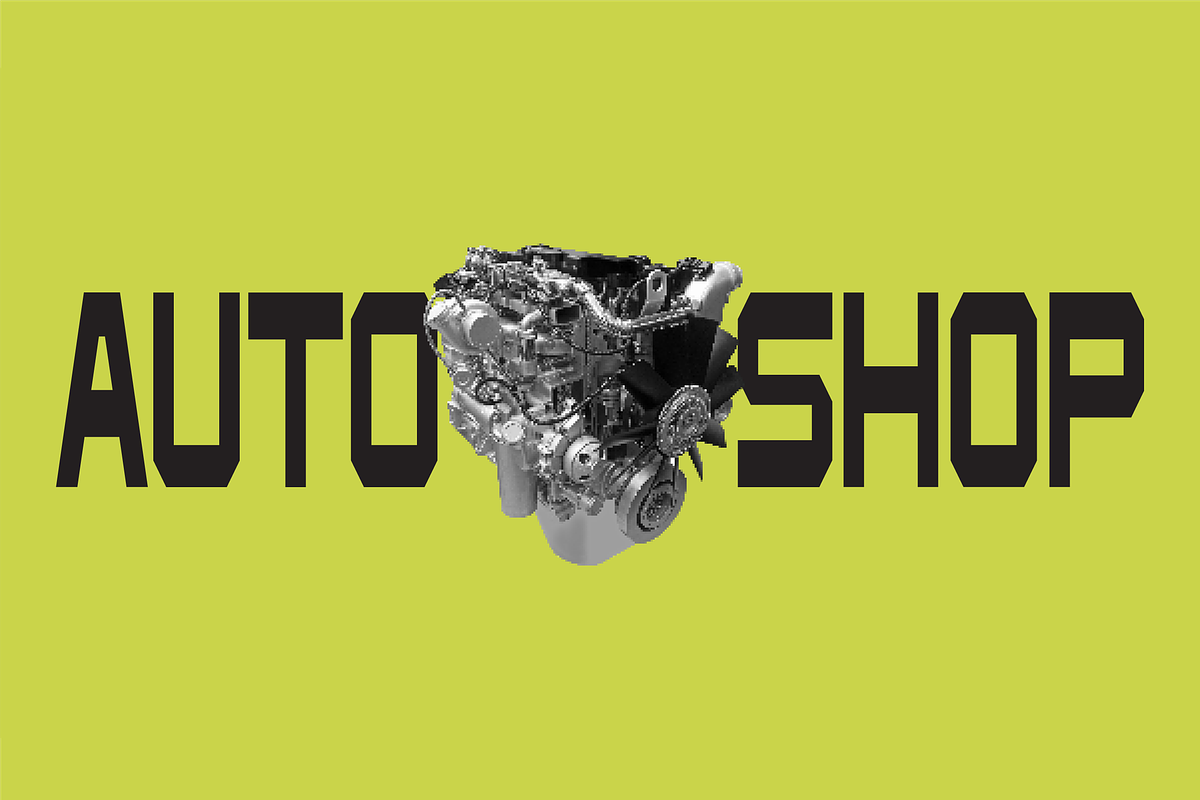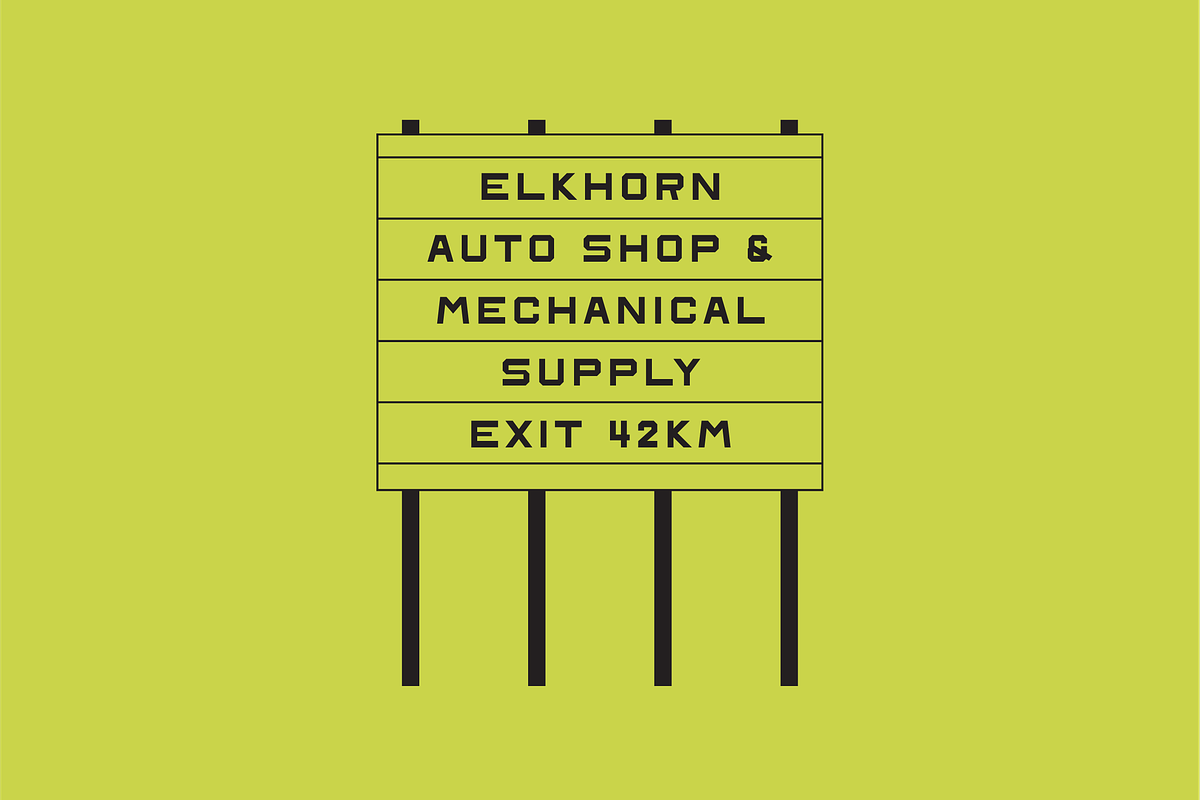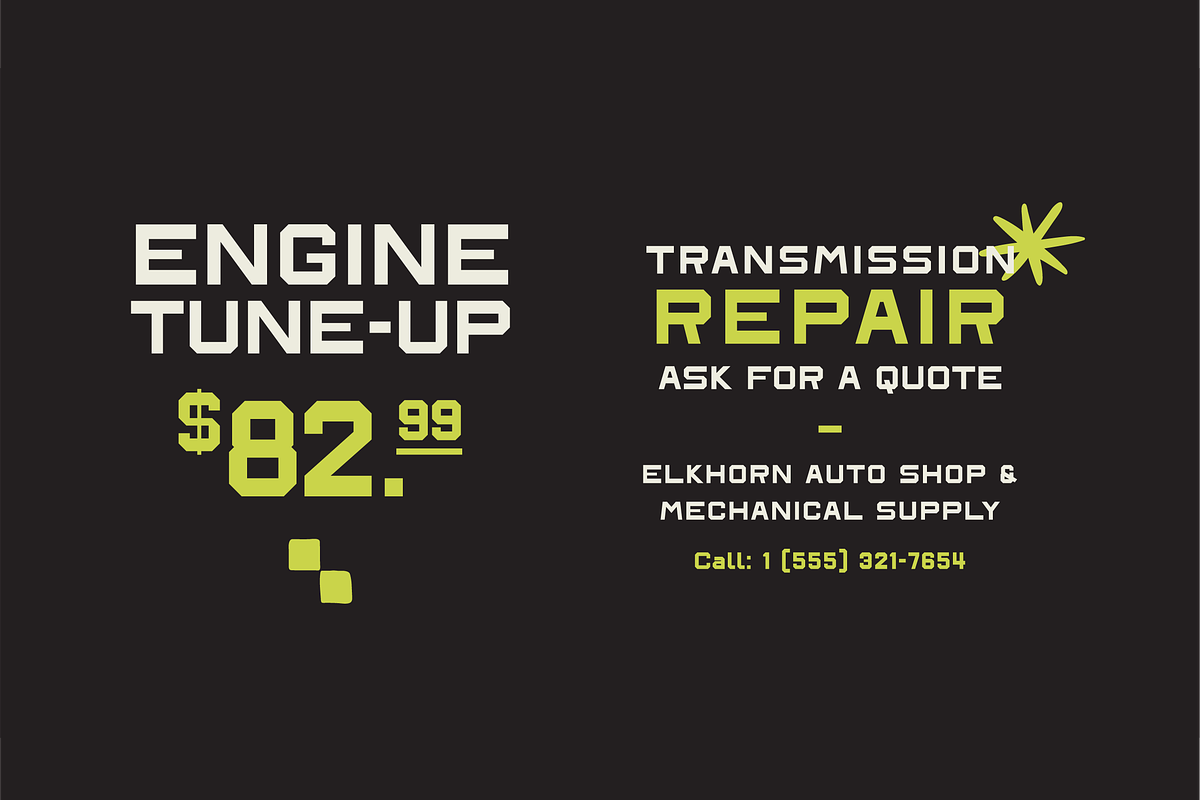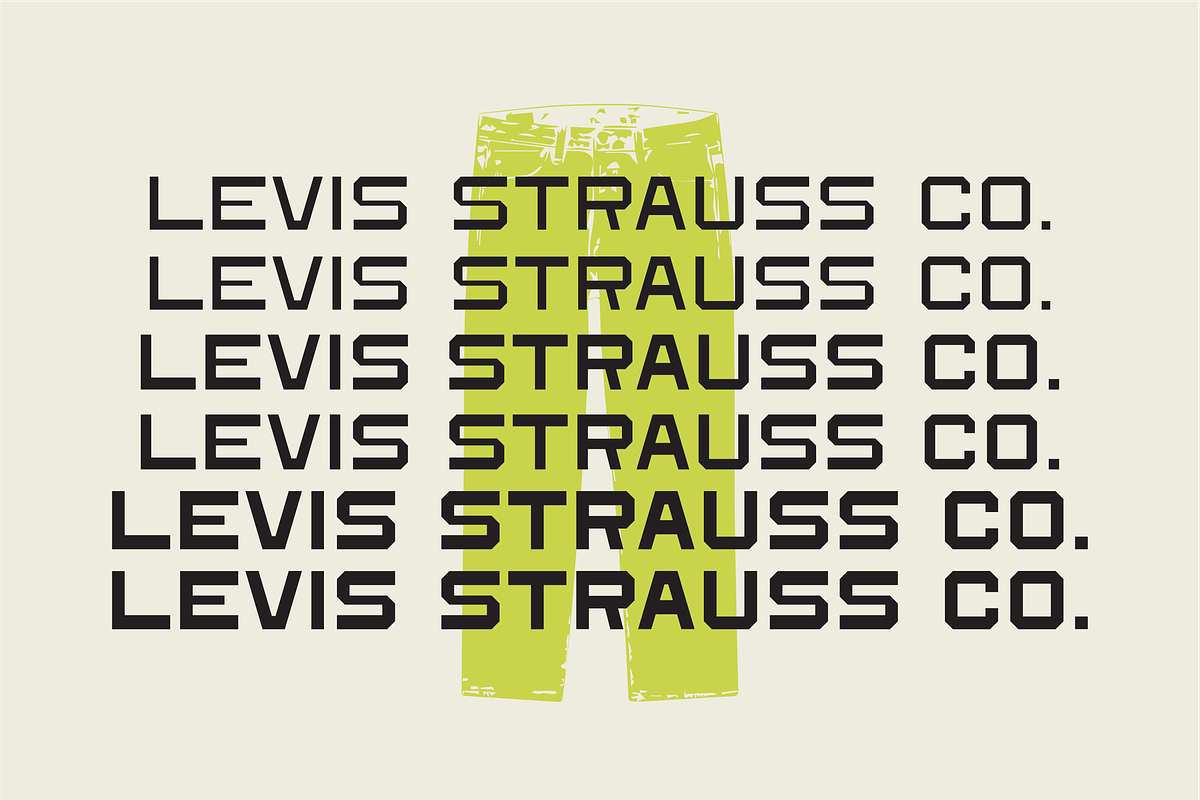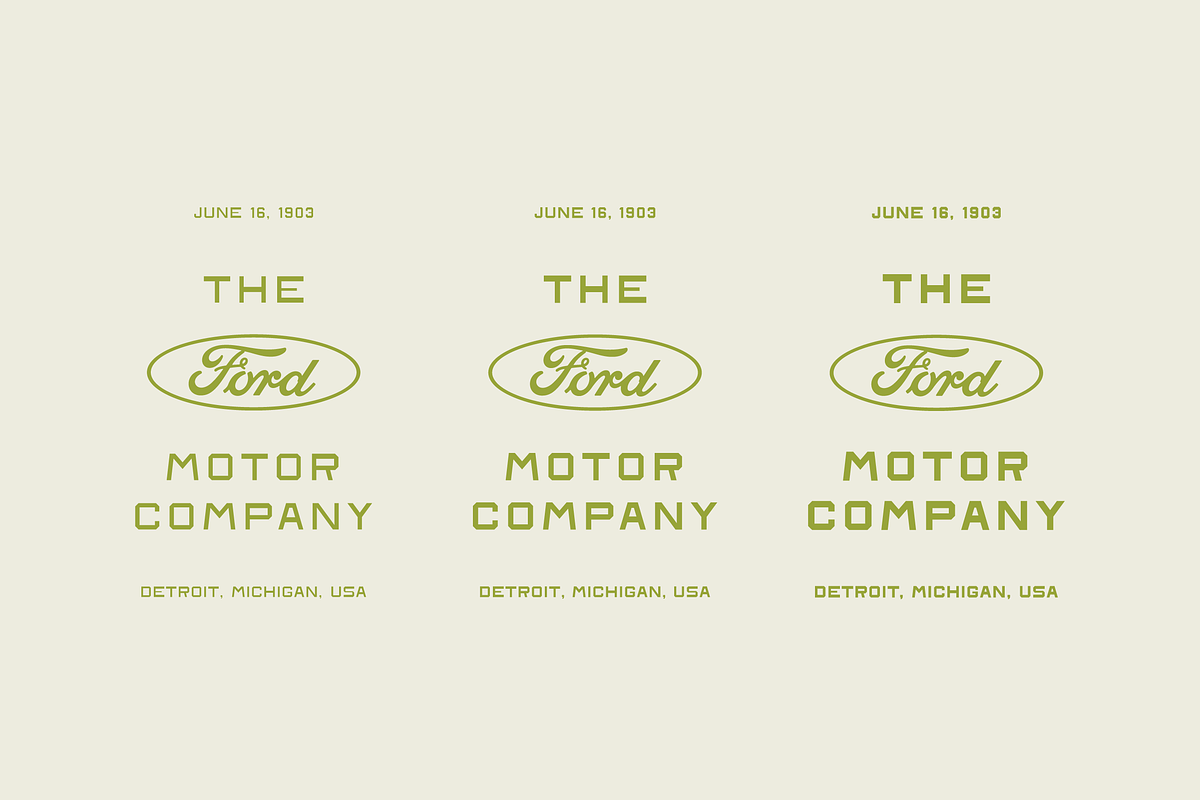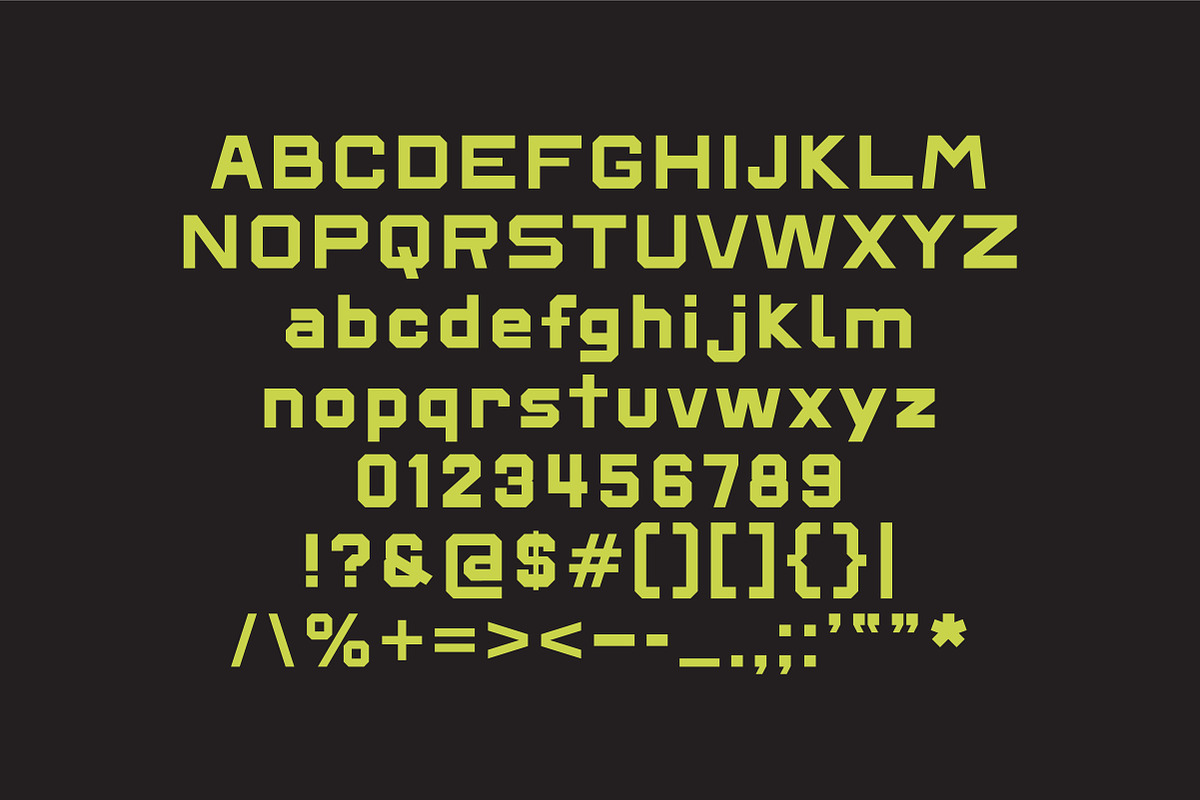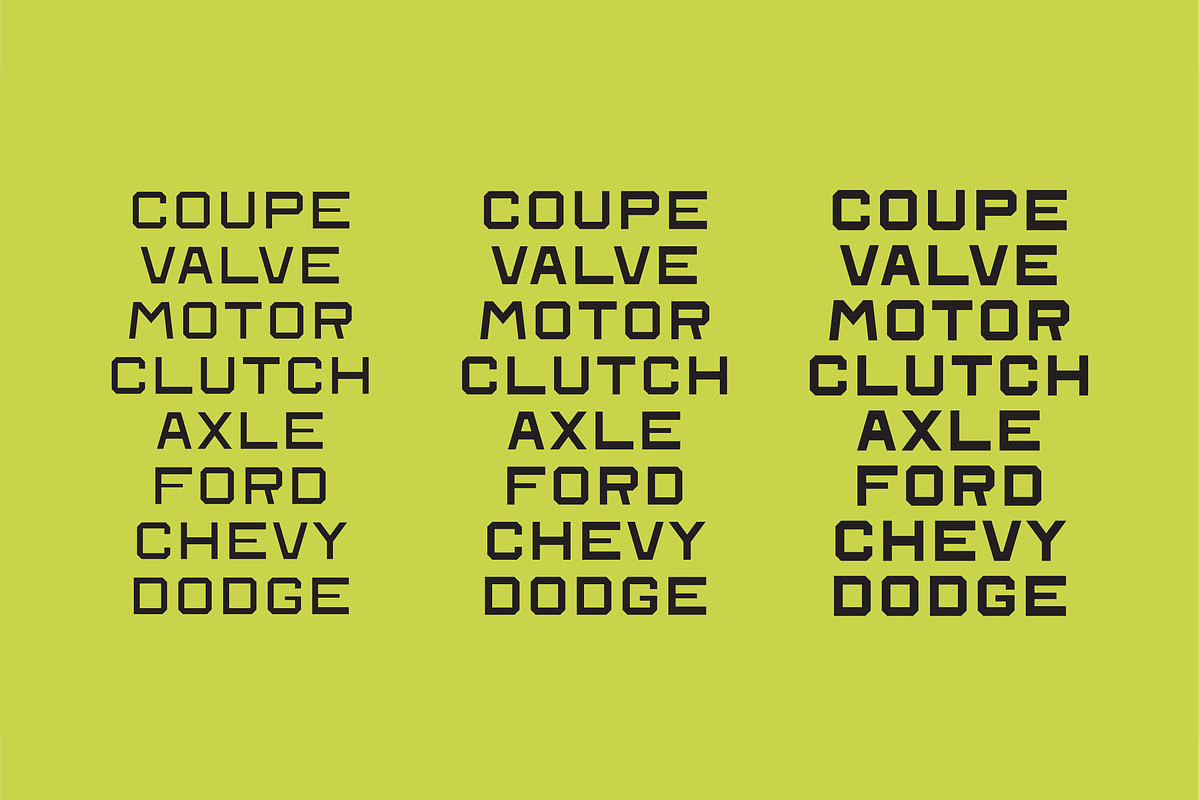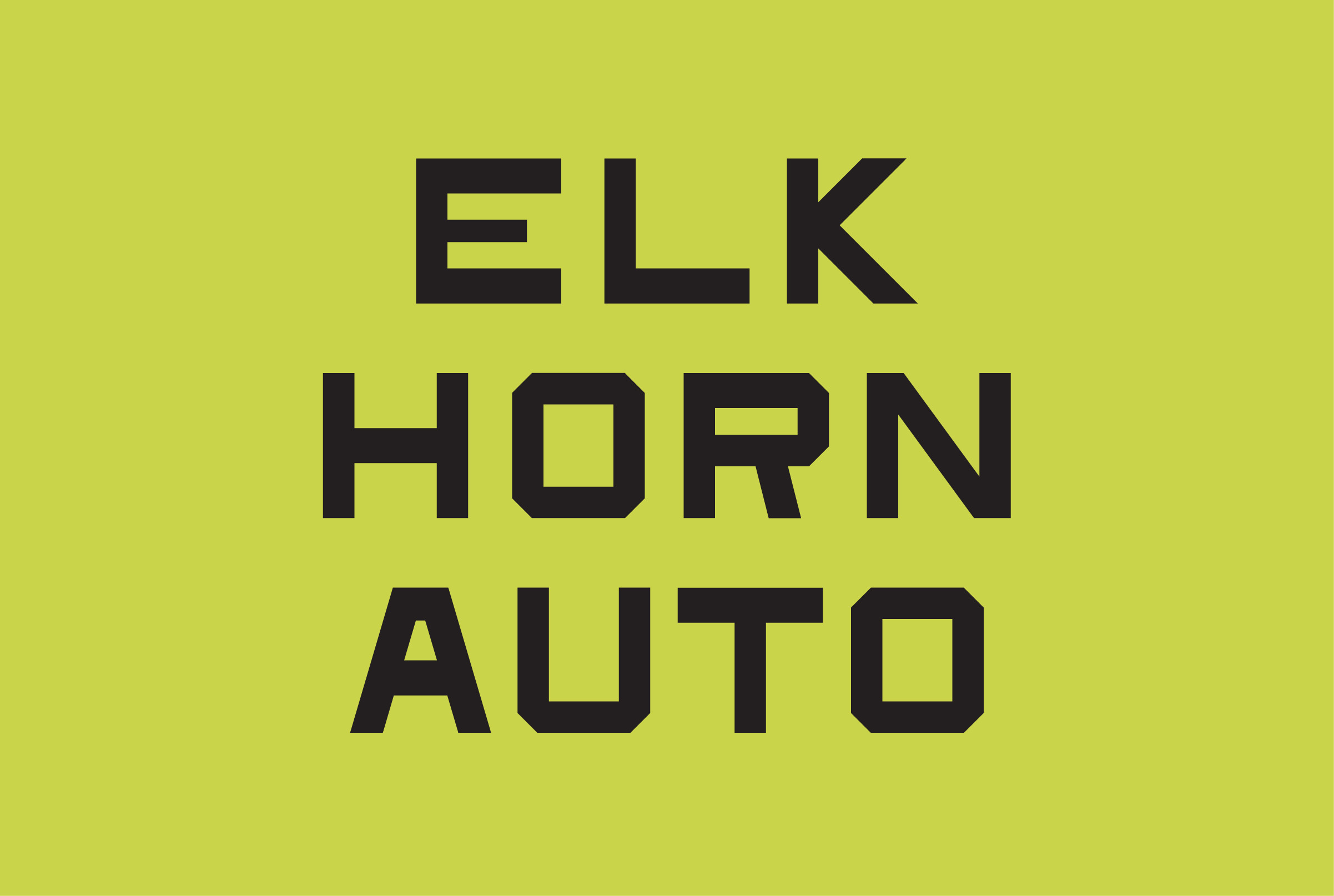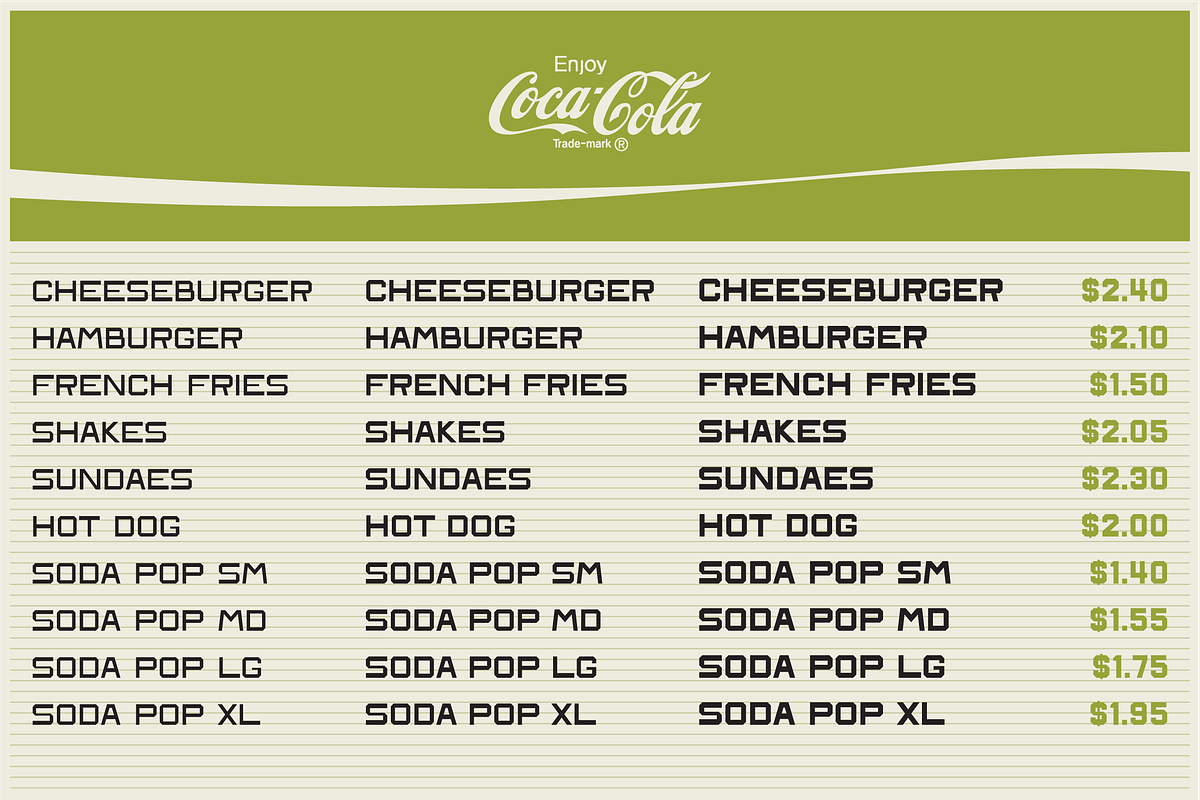
Elkhorn Auto Typeface
Introducing Elkhorn Auto Typeface
A captivating journey through the vintage world of auto mechanics and the irresistible charm of retro Coca-Cola letter-board menu signs. Elkhorn Auto Typeface epitomizes versatility and impact, effortlessly evoking the essence of a bygone era. It's your gateway to three distinct weights: Bold, Regular, and Thin. As demand for this typeface grows, fuelled by the passion of enthusiasts like you, I'm fully committed to expanding its character set and introducing additional weights and italicized versions.
The inspiration behind this typeface was born during a memorable road trip from Regina to Winnipeg, where I encountered the enchanting Elkhorn Auto Museum sign, nestled alongside the highway. It left an indelible mark on my design journey, and now, it can be a source of inspiration for your creative endeavours. Elevate your designs with Elkhorn Auto Typeface – where vintage allure meets contemporary design excellence.